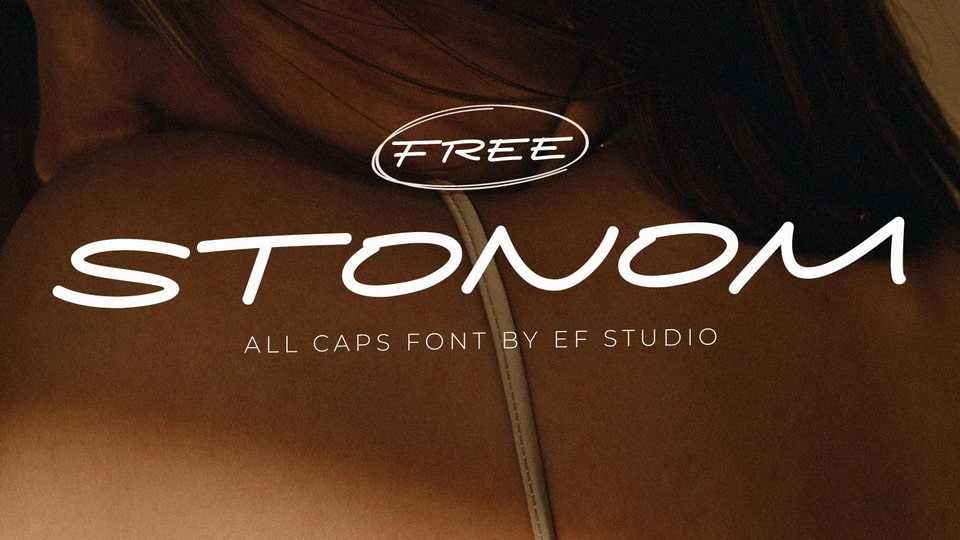
Download Stonom font, all-caps handwritten typeface with neat and wide design, that mimics the style of an architect’s handwriting.
Designer: Ef Studio